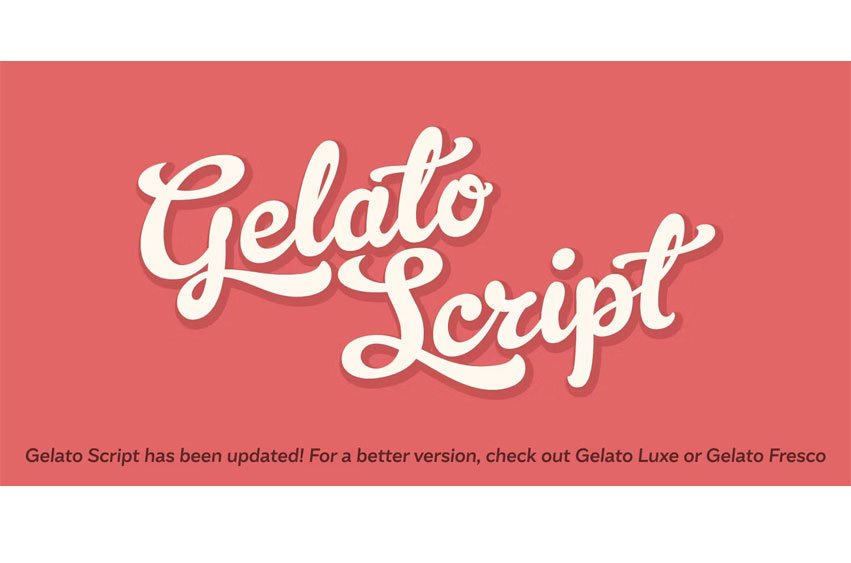
Gelato Script Font has been updated and improved, not once, but twice. This version is kept here for legacy and compatibility issues, but I would encourage new users to check out Gelato Luxe or Gelato Fresco instead.
Gelato Script is a smooth-flowing typeface with an air of familiarity. Influenced by both formal scripts and mid-Twentieth Century hand lettering. The power of OpenType is used with precision in the Contextual Alternate feature to make sure letters connect seamlessly, t’s cross where they can and swashes don’t crash into neighboring glyphs. 781 glyphs make up this font, which is capable of speaking in many different languages.
Alternate forms are grouped into stylistic sets to make it easy to change the mood of the text. For example, ss01 makes droopable letters drop below the baseline to break it up a little if required. I recommend using it sparingly, one glyph at a time, but if you do enable it for a whole chunk of text, the clever OpenType programming ensures that it doesn’t go overboard. Sets 2, 3 and 4 bring about alternate forms of S, s, B and Q. Set 5 changes AE and OE to some perhaps controversial Upper/lowercase ligatures.
Engage ss06 for the underline feature. After a word, simply type two or more underscores and a line extends backwards under the word you just typed. Don’t worry if you have to break for a descender, the OpenType programming will take care of making sure it connects properly to the preceding character.
Sets 7 and 8 are for alternate ampersands, and ss09 swaps the script r for a regular shaped r.
There are swash capitals available for most uppercase letters, and the OpenType programming makes sure there is room for them under or over the following letters. There’s also a good amount of ligatures thrown in.
The localised forms feature can be set for Polish, where acutes get steeper and lslash takes on its script form; Dutch, where IJ and ij digraphs become cool ligatured combinations; and Romanian and Moldovan, where cedillas are substituted for comma accents.
The stylistic alternates feature groups together a few of the stylistic sets for users that can’t get to them directly.
Gelato Script is a highly usable, powerful typeface. Perfect for everything from food packaging to wedding invitations, sports team logos to magazine headings. Use it however you see fit. Just one thing – it’s not designed for all-caps settings, so avoid that at all costs!